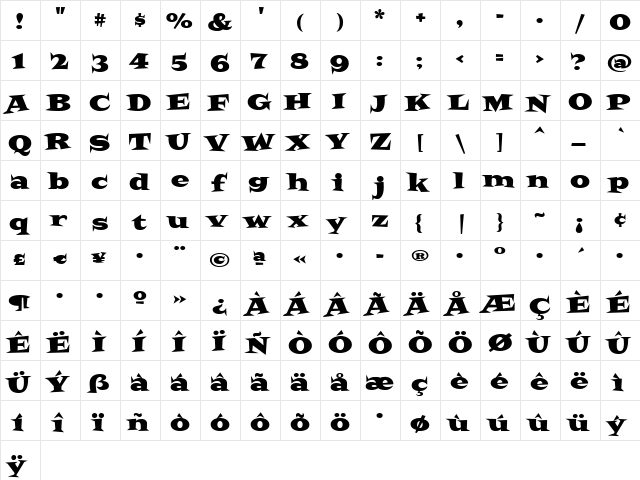
Latino Regular
Design Context for Latino Typeface
Latino offers clean, dependable letterforms without strong stylistic allegiance, making it a practical choice for designers who need flexibility.
Pro Tip: Use Latino in both headline and body roles to test its range before committing to a single application.